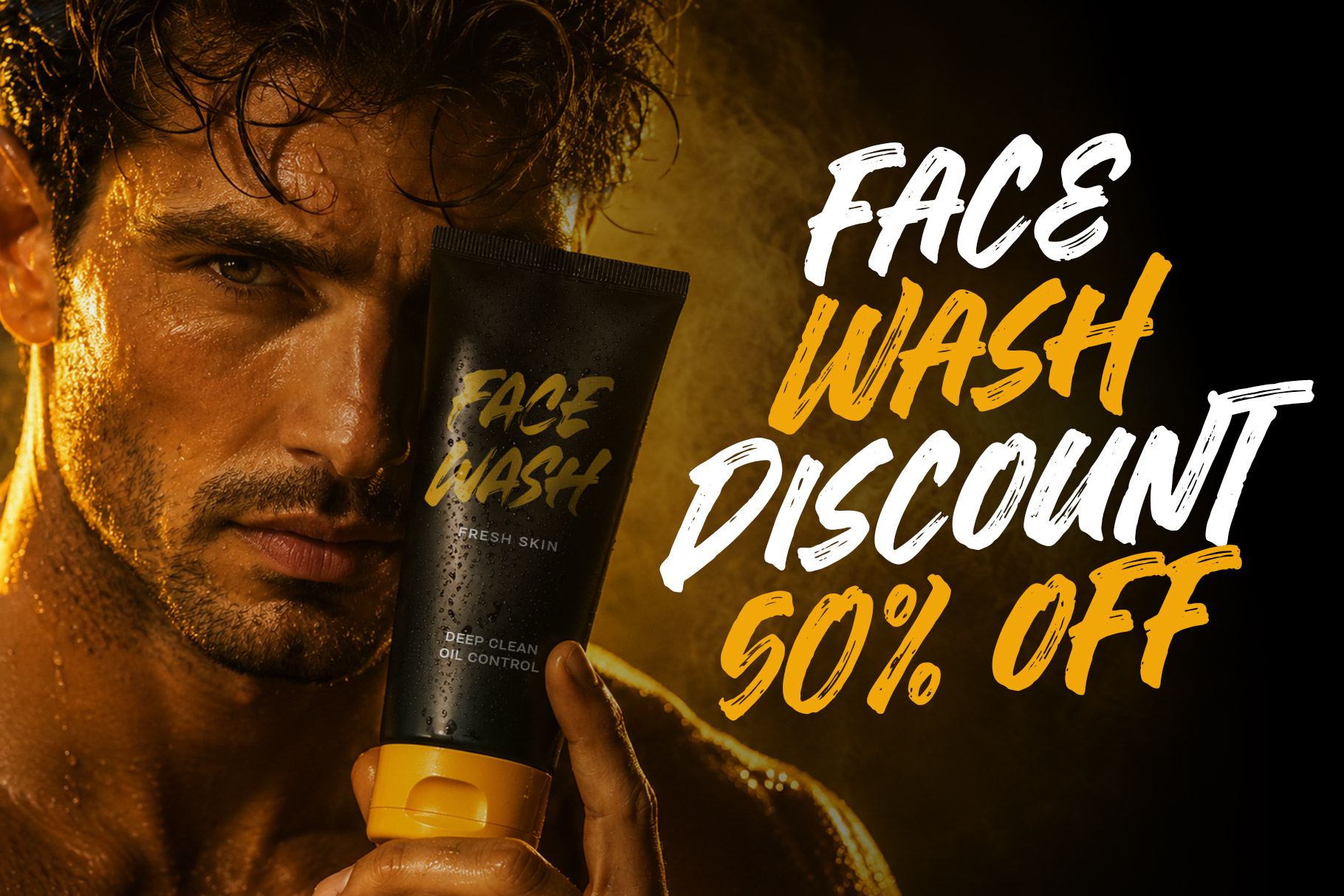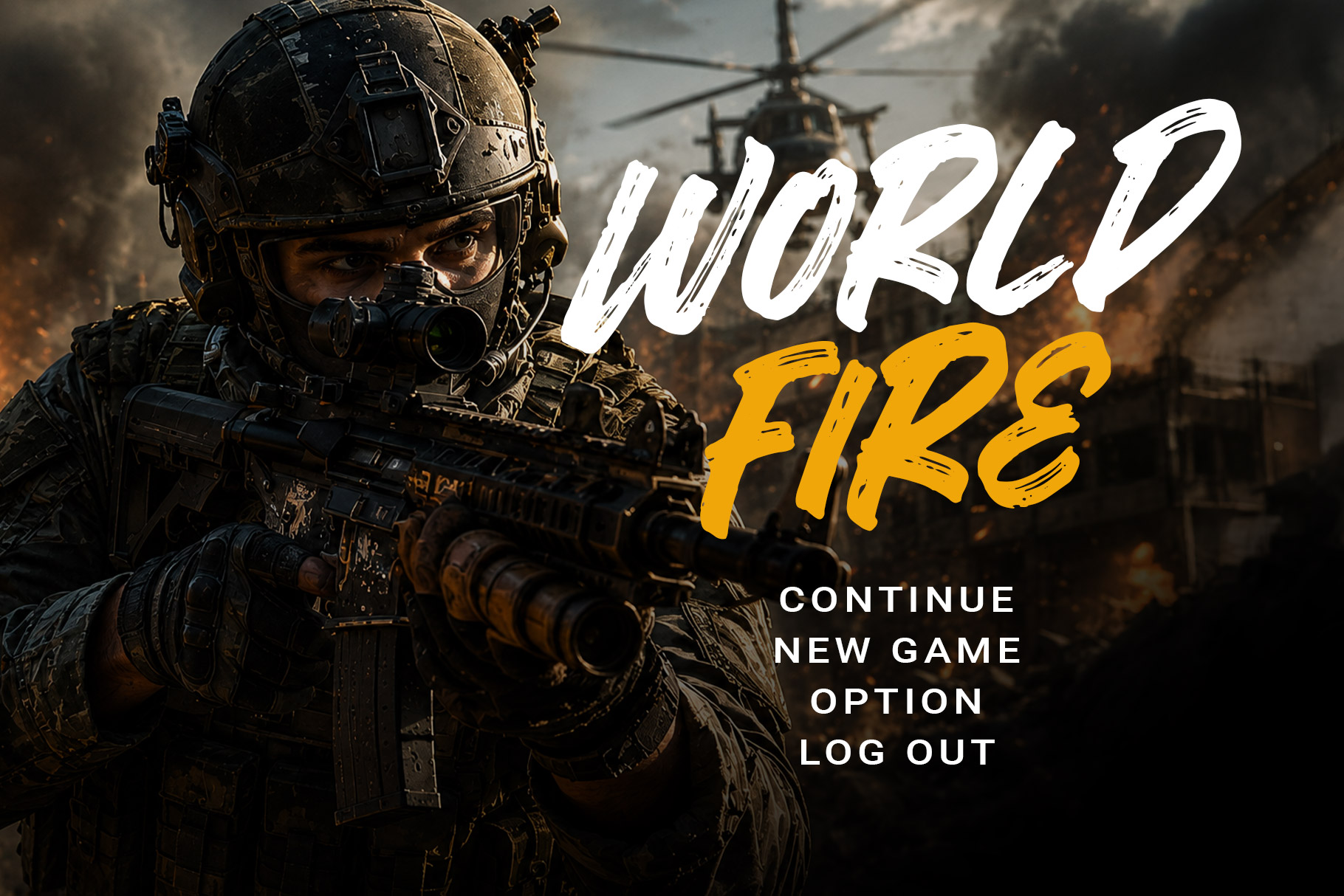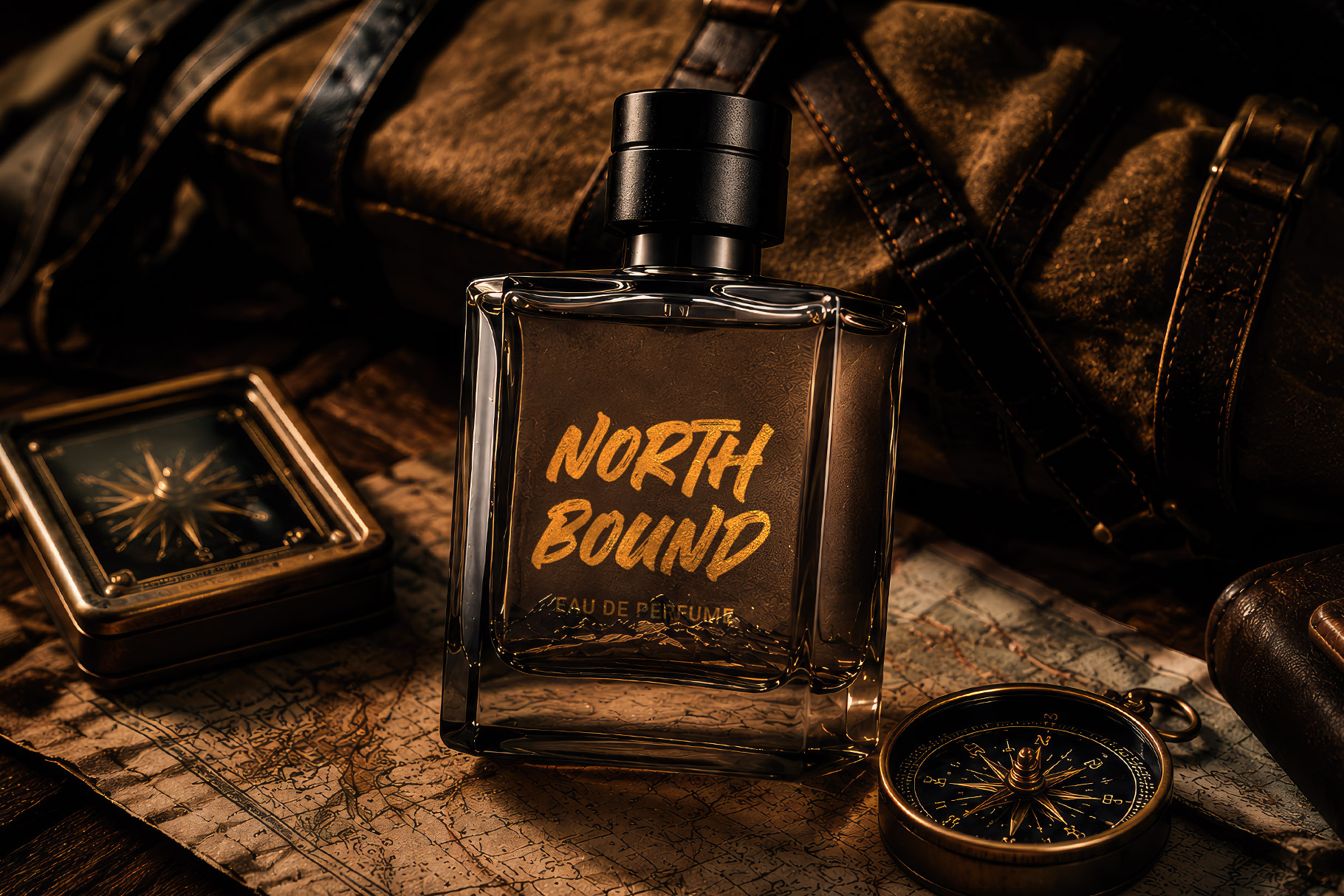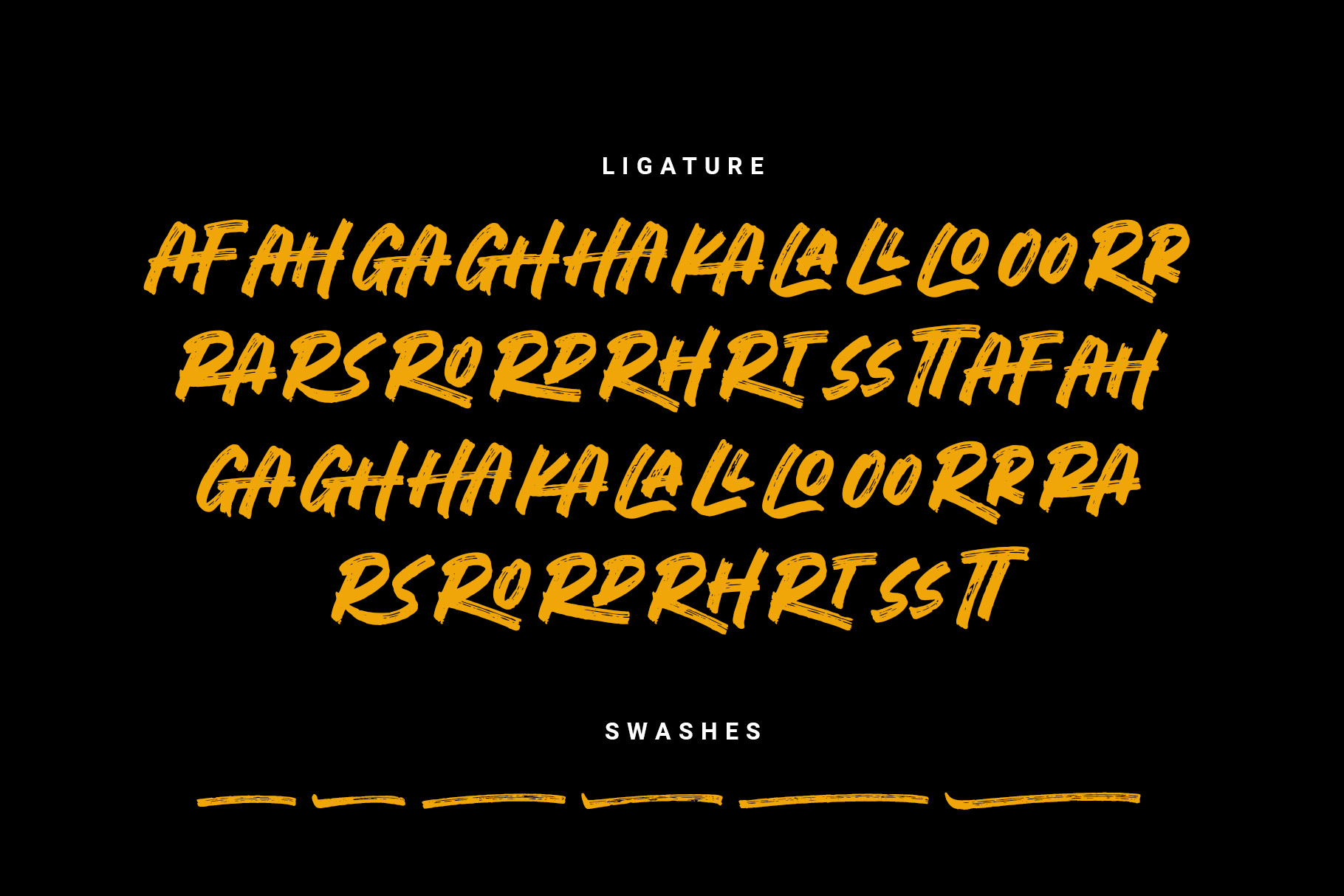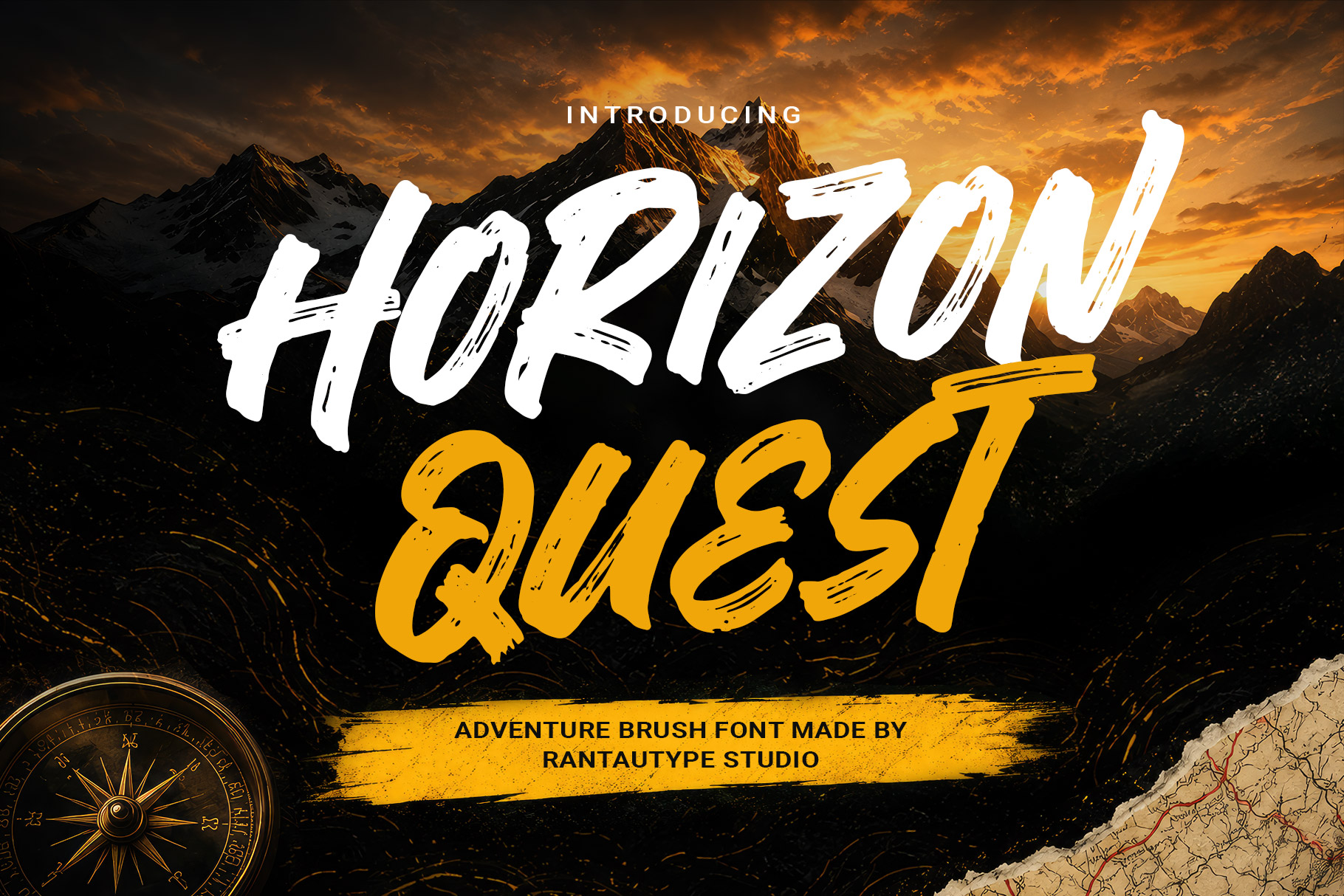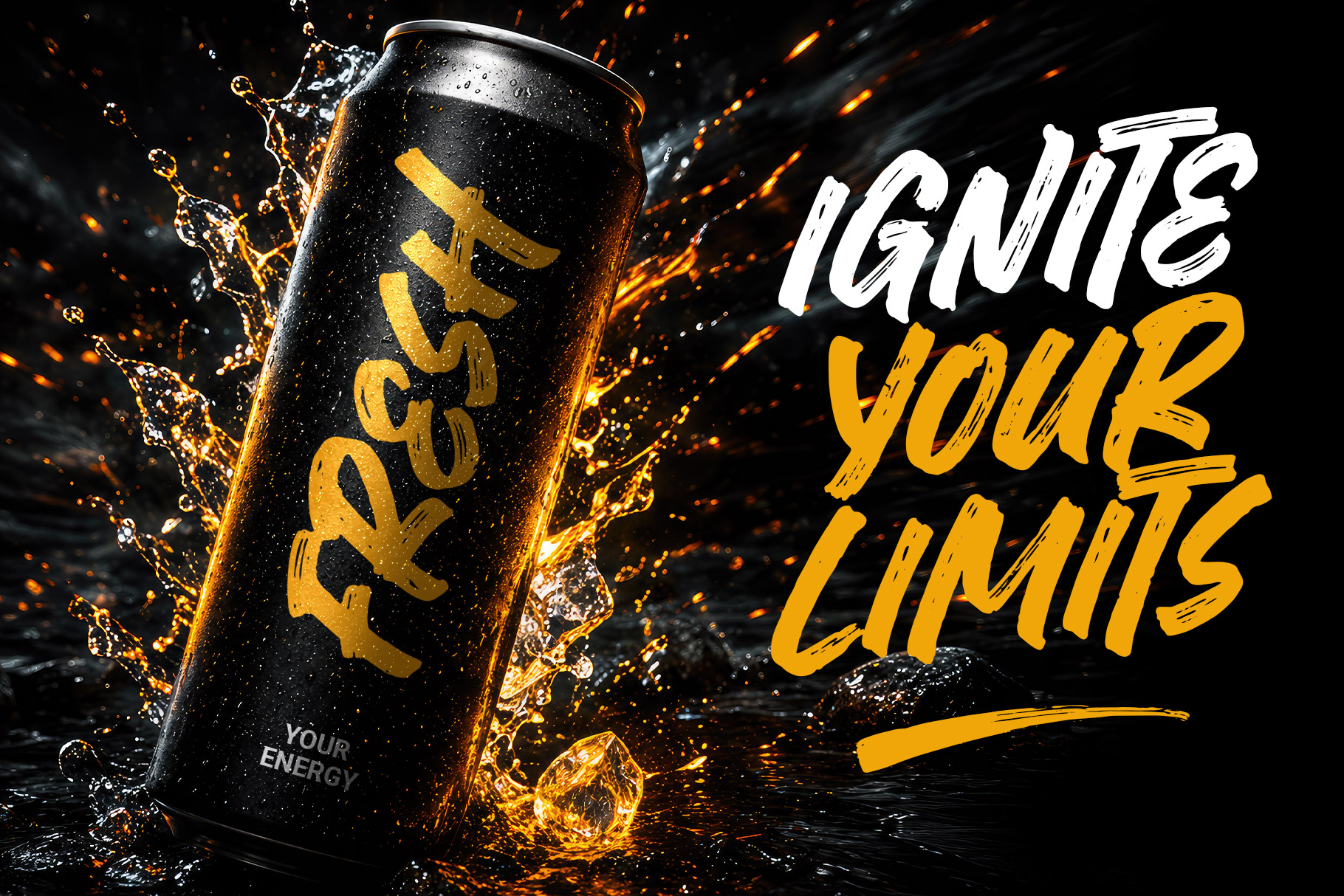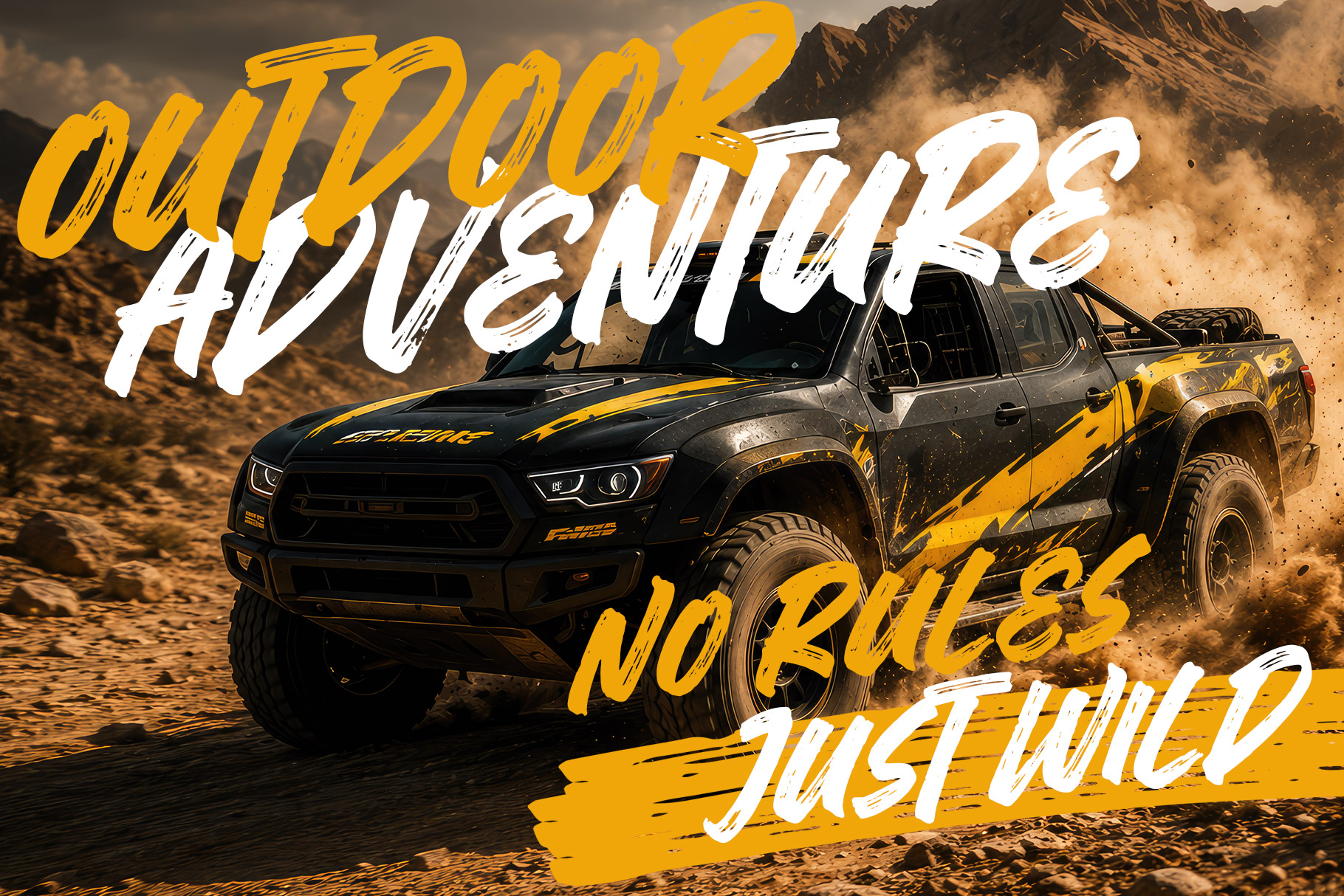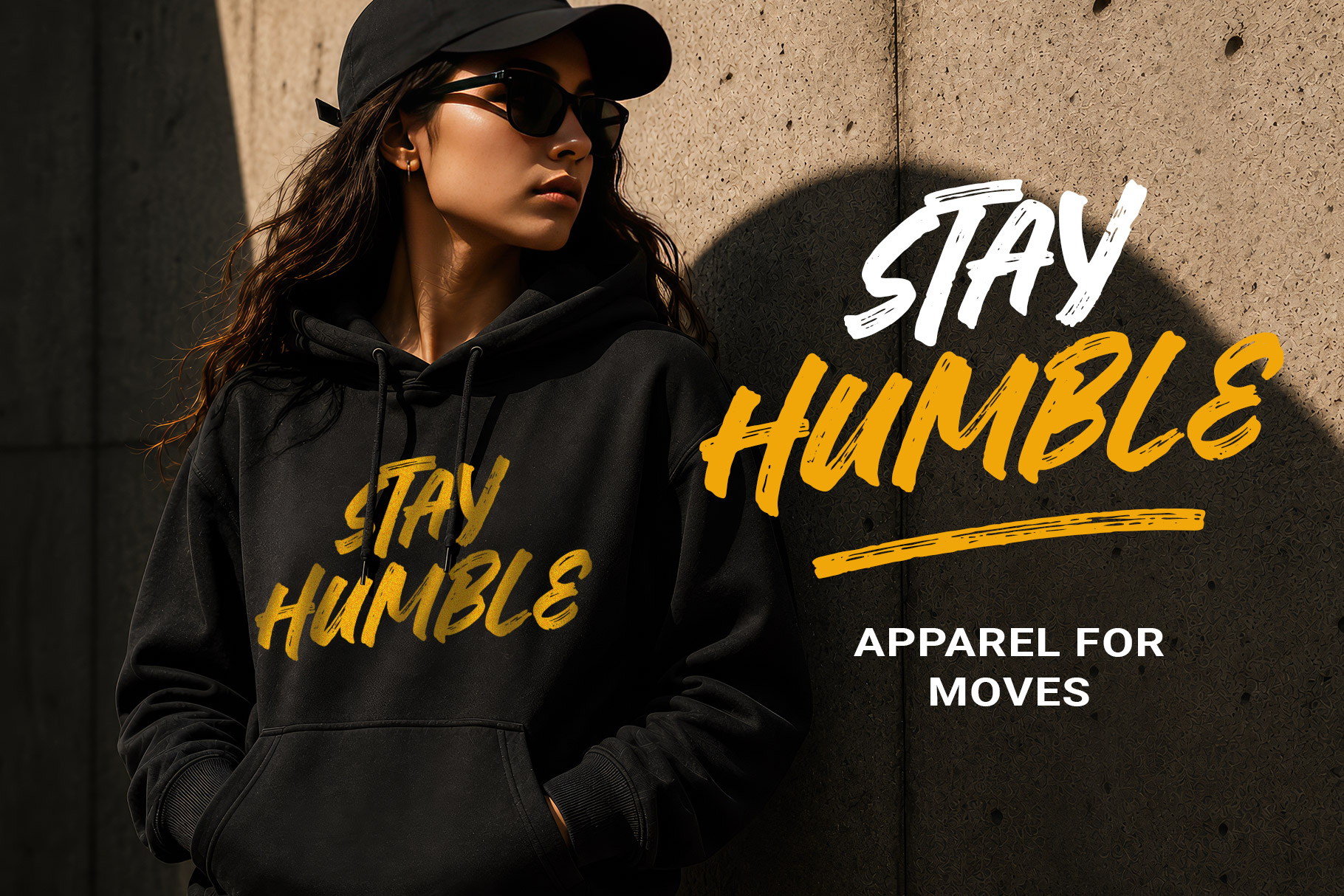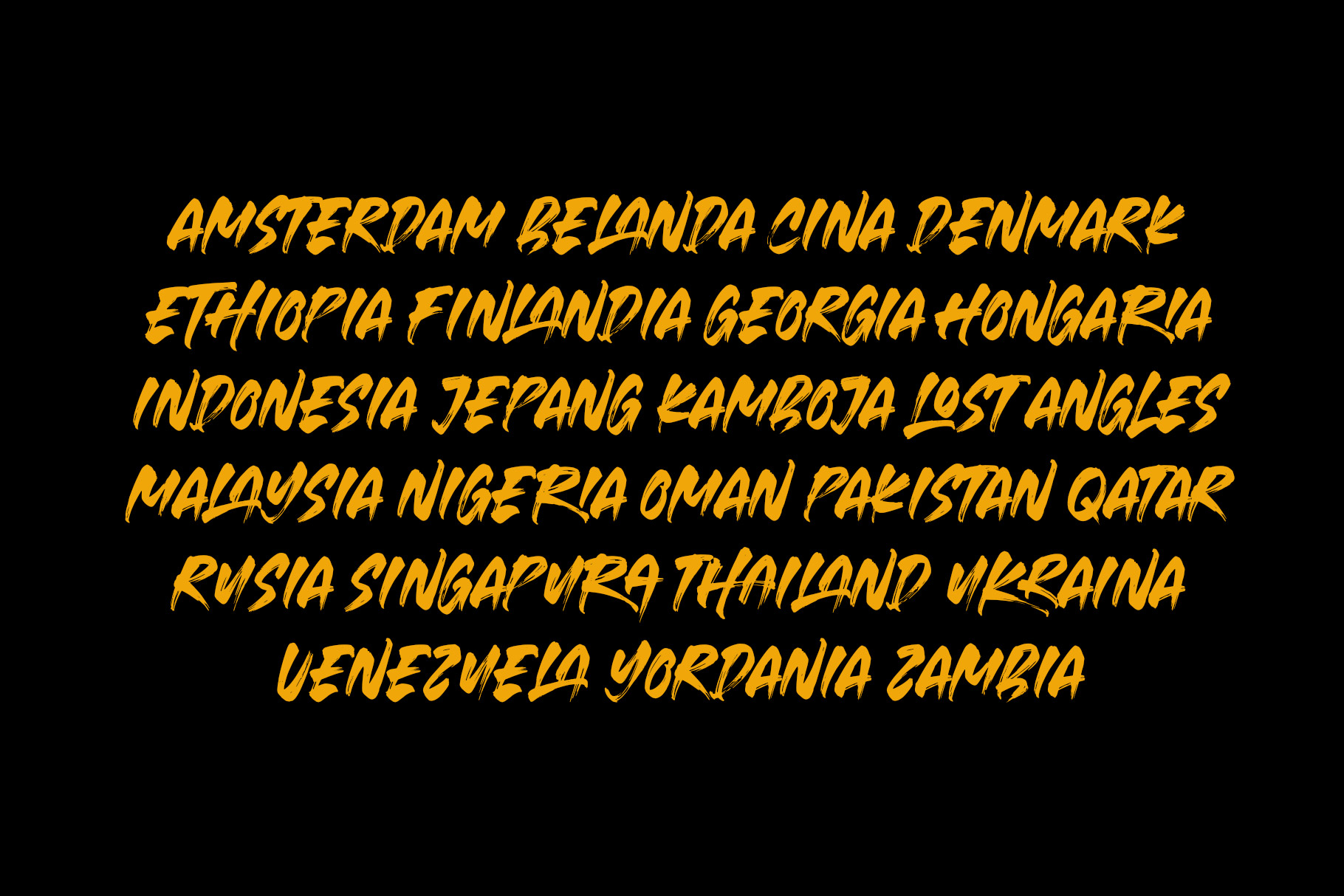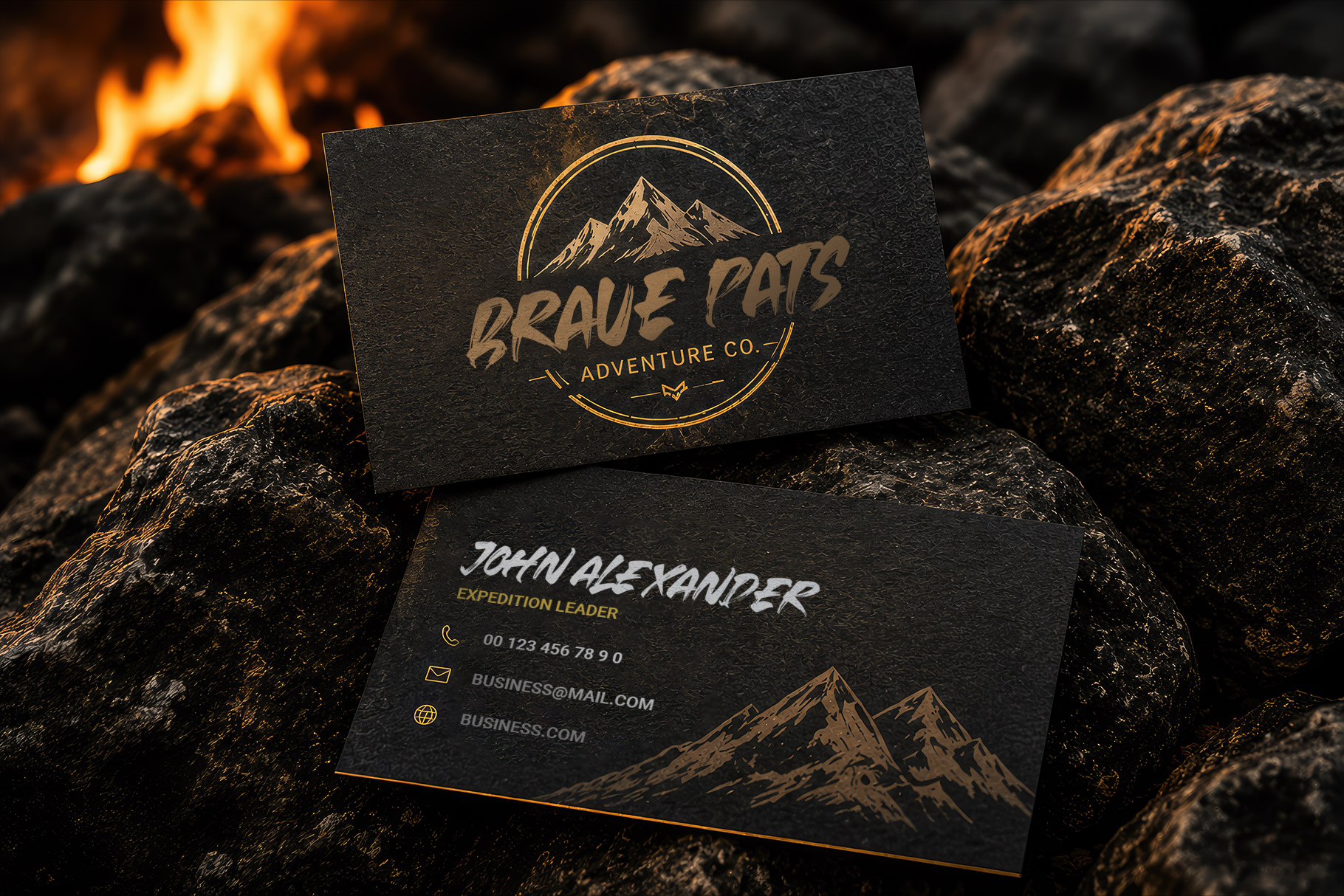
Horizon Quest
Horizon Quest Captures the spirit of adventure, freedom, and exploration through its bold handcrafted strokes and energetic character. Designed with a rugged, expressive brush style, each letter carries a sense of movement that feels natural and untamed, making it perfect for outdoor, travel, and adventure-themed projects. The textured edges and dynamic brush details create an authentic hand-painted appearance, adding personality and excitement to every word.